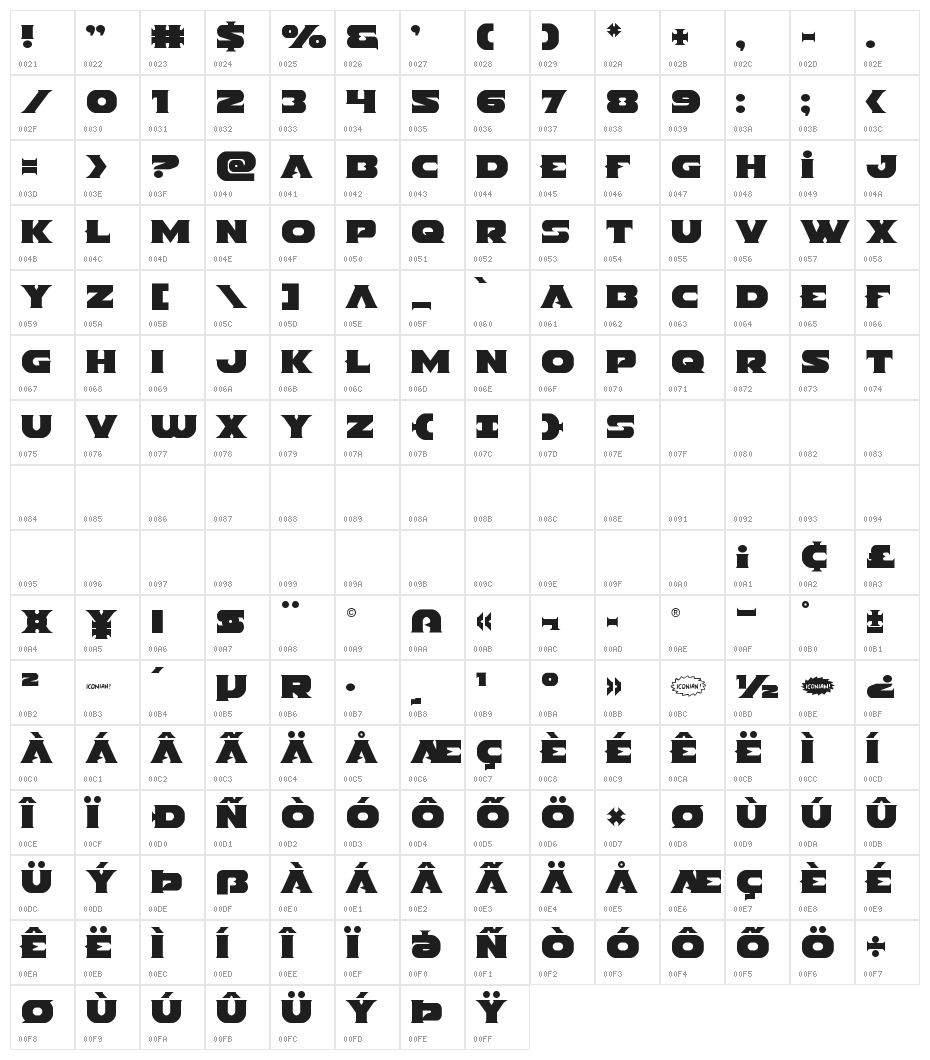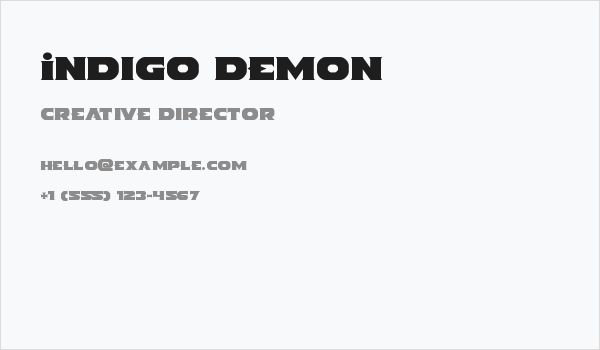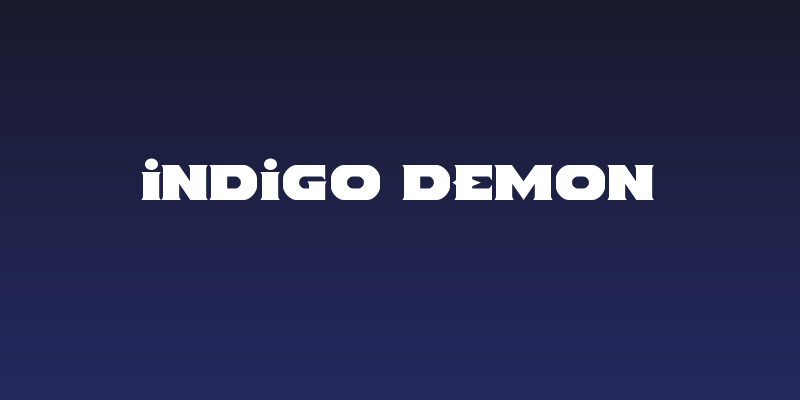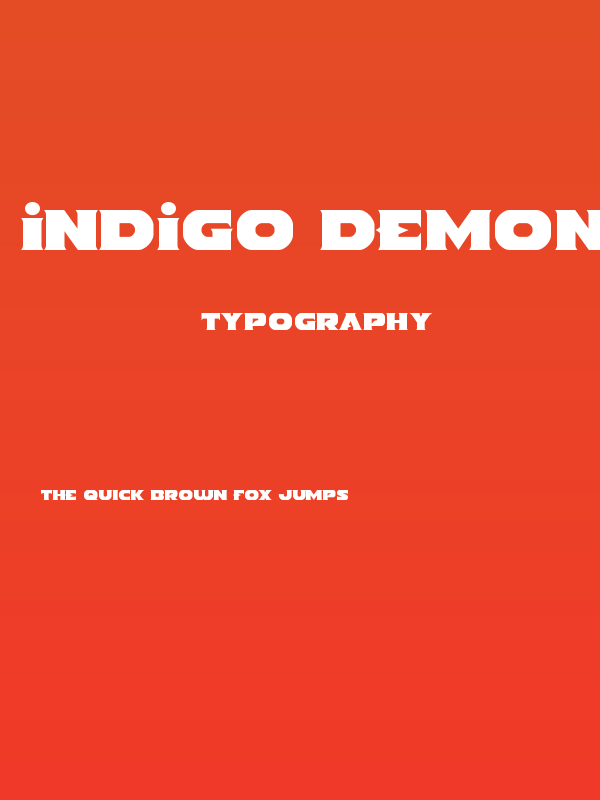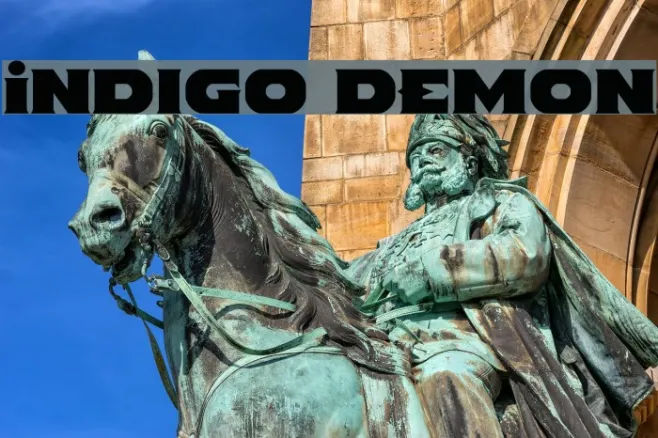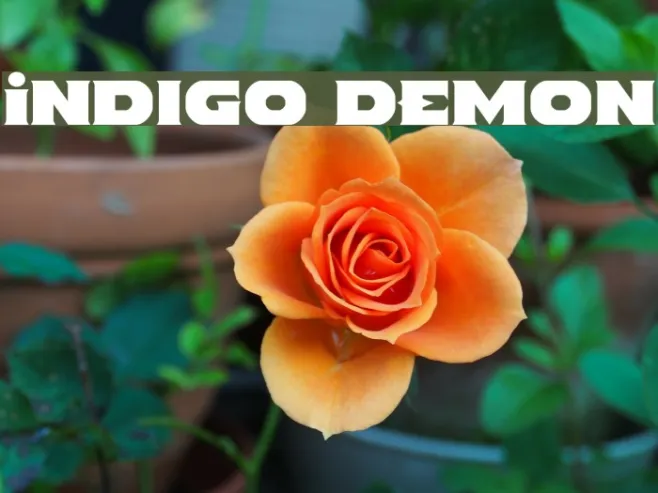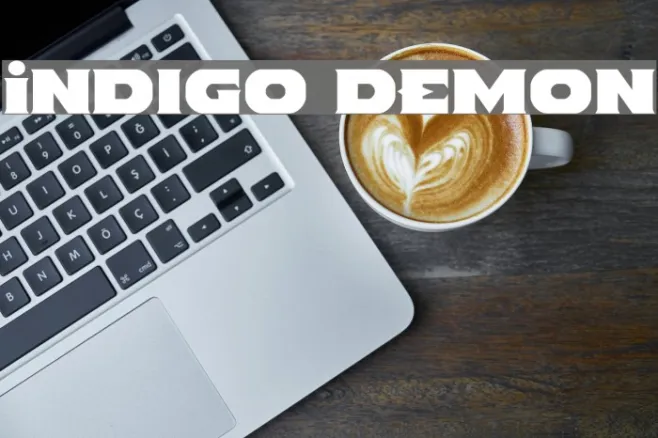
Indigo Demon Font
Indigo Demon Description
This font features a bold, geometric design with sharp angles and a strong presence. The characters are constructed with thick strokes and unique cut-out shapes, giving it a futuristic and edgy appearance. The uppercase letters are particularly striking, with a uniform height and width that create a cohesive look. The numbers and special characters maintain the same bold style, ensuring consistency across all text elements. This font is ideal for making a statement and capturing attention with its distinctive and modern aesthetic.
INDIGO-DEMON UPPERCASE
INDIGO-DEMON LOWERCASE
INDIGO-DEMON OTHER CHARS